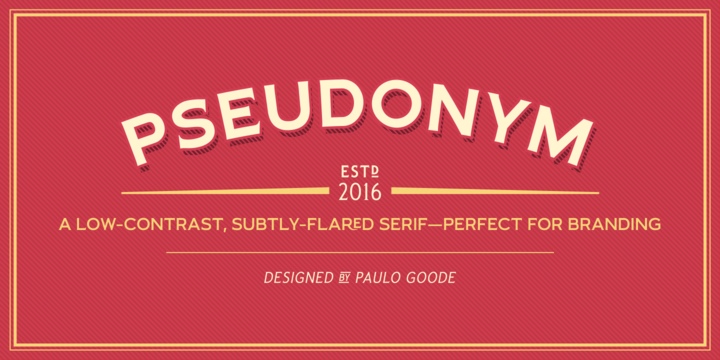
Pseudonym Font
Pseudonym Font is perfect for mystery novel covers, detective agency branding, spy thriller book titles, anonymous messaging platforms, confidential document headers, undercover investigation materials, secret society graphics, cryptographic publications, covert operation signage, and enigmatic entertainment promotions.
What makes Pseudonym Font so exciting is its extraordinary ability to embody mystery and intrigue through letterforms that seem to conceal secrets while revealing just enough to captivate the imagination. This enigmatic typeface captures the essence of hidden identities and clandestine communications with characters that appear to shift between shadow and light, creating an atmosphere of sophisticated mystery and intellectual intrigue. The font's covert design elements perfectly balance readability with mysterious appeal, creating an indispensable tool that communicates secrecy, intelligence, and sophisticated deception, making it essential for projects that thrive on mystery, suspense, and the allure of the unknown.
Pseudonym Font comes in multiple font families including Regular, Bold, Light, Italic, Bold Italic, Shadow, Cipher, and Encrypted variations. Each family member maintains the core mysterious characteristics while offering different intrigue levels and stylistic approaches to suit various covert design requirements.
The cryptic elegance in Pseudonym Font makes it particularly effective for entertainment industries focused on mystery, suspense, and intellectual thriller content where creating atmospheric tension and sophisticated intrigue is essential for audience engagement. Its mysterious letterforms work exceptionally well in both print publications and digital applications, where the enigmatic character can create maximum psychological impact and memorable brand presence.
Mystery entertainment professionals recognize how Pseudonym Font transforms ordinary promotional text into tantalizing invitations to intellectual adventures and psychological mysteries. The typeface's secretive character set includes special cryptographic symbols and mysterious elements that enhance the overall covert atmosphere of any thriller-focused project.
For creative professionals serving mystery publishers, thriller entertainment, and detective fiction brands, Pseudonym Font serves as the perfect foundation for establishing memorable visual identities that capture the essential qualities of intellectual mystery, sophisticated intrigue, and enigmatic appeal that define successful thriller entertainment in competitive mystery markets worldwide.